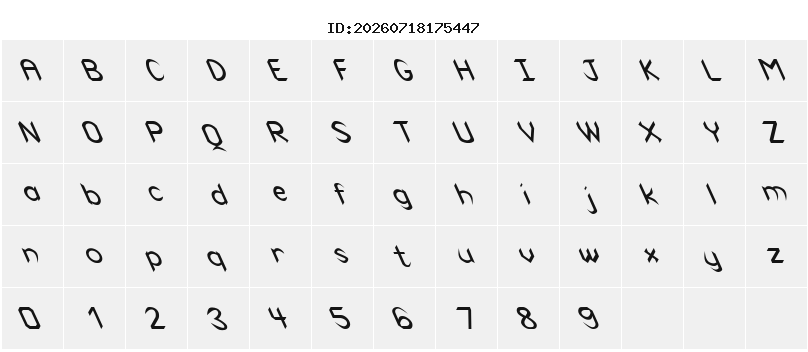
Cuneiform Extreme Lefty Preview
About Cuneiform Extreme Lefty.ttf
Cuneiform Extreme Lefty.ttf is a modern, elegant sans-serif font designed for ultimate readability and visual harmony. Perfect for branding, headlines, web design, and print materials.